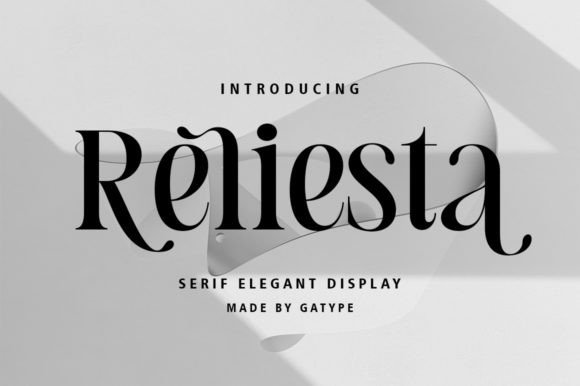
Introducing Reliesta Font - the perfect choice for anyone looking to create an elegant, natural, and stylish design. As a serif font, it exudes class and sophistication, making it one of the best fonts for a title. Created by gatype, Reliesta boasts a natural look that is sure to capture the attention of anyone who comes across it.
This font is a versatile tool for anyone looking to add a touch of elegance to their project. It can be used in a variety of contexts, including invitations, logos & branding, photography, advertising, watermarks, social media posts, product packaging, product designs, labels, wedding designs, stationery, special events, and more. Whatever your creative needs may be, Reliesta has got you covered.
With its stylish and modern appearance, Reliesta is a must-have for anyone who wants to create a design that stands out from the crowd. It is perfect for anyone who wants to make a statement, and its natural look gives it a unique edge that will set it apart from other fonts.
Whether you're designing for business or pleasure, Reliesta is an excellent choice. Its elegant appearance and versatility make it perfect for any project, and it is sure to capture the attention of anyone who sees it. So why wait? Download Reliesta Font today and start creating designs that are truly stunning!